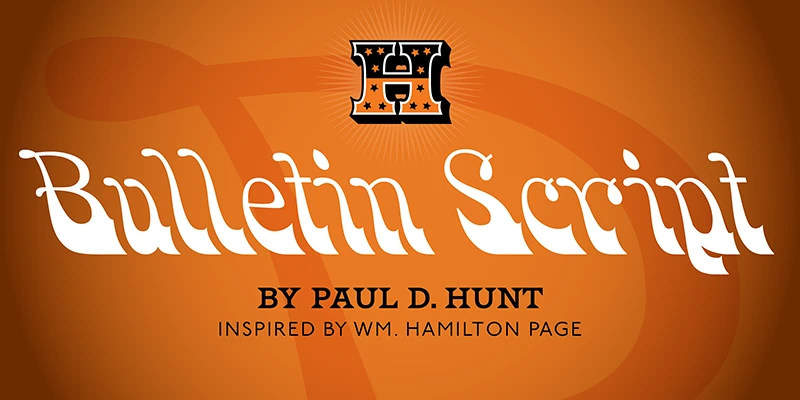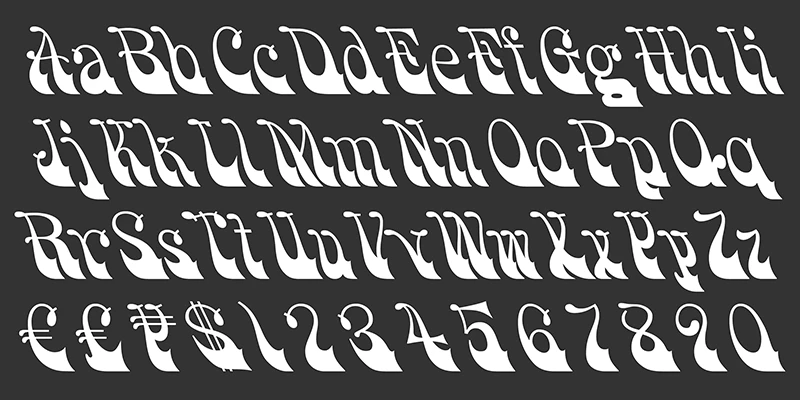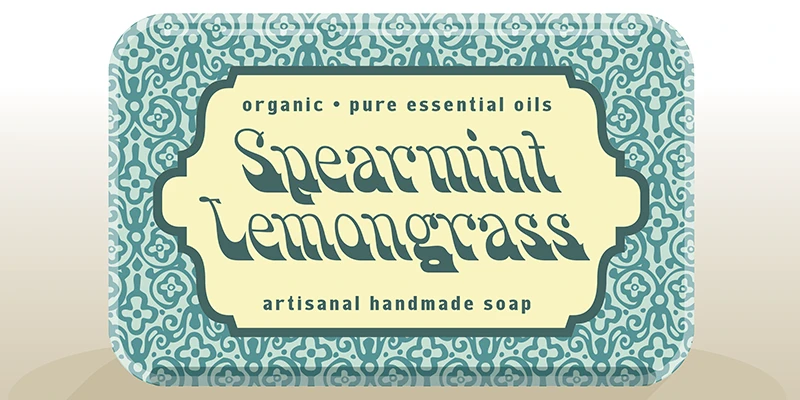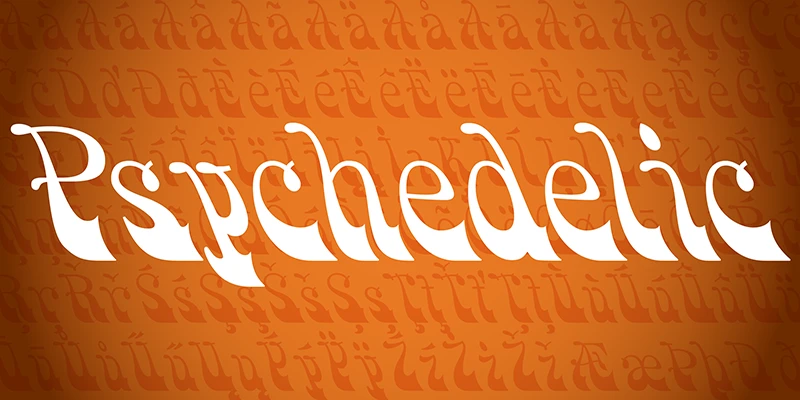
Bulletin Script
From Hamilton Wood Type Collection
Paul D. Hunt’s HWT Bulletin Script, inspired by the 60s psychedelic style and sourced from the Hamilton Collection, boasts a unique blend of contrasting elements. The heavy bottom halves of its letters sweep into crisp concavity, punctuated by energetic spikes. In contrast, the thin top halves feature intricate details like ball terminals and looped endings. This harmonious fusion of bold and delicate forms produces a coherent, flowing script.
Designed by Paul D. Hunt